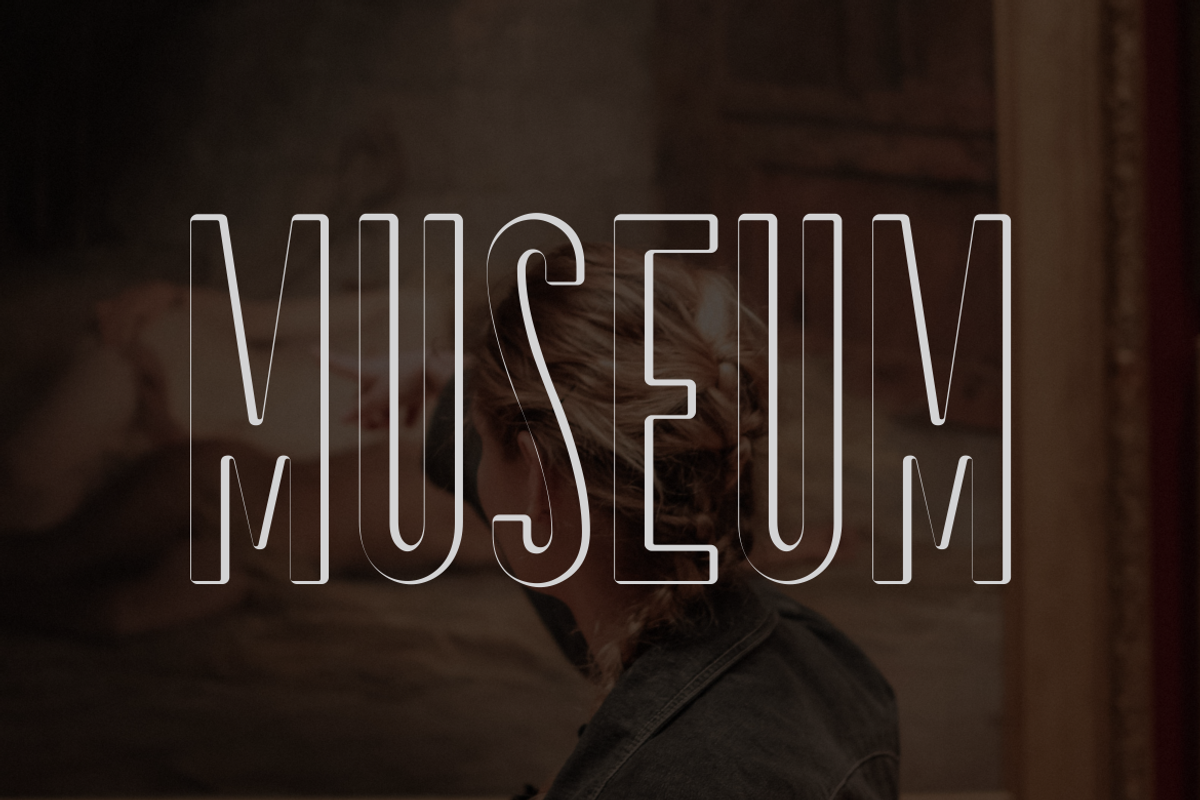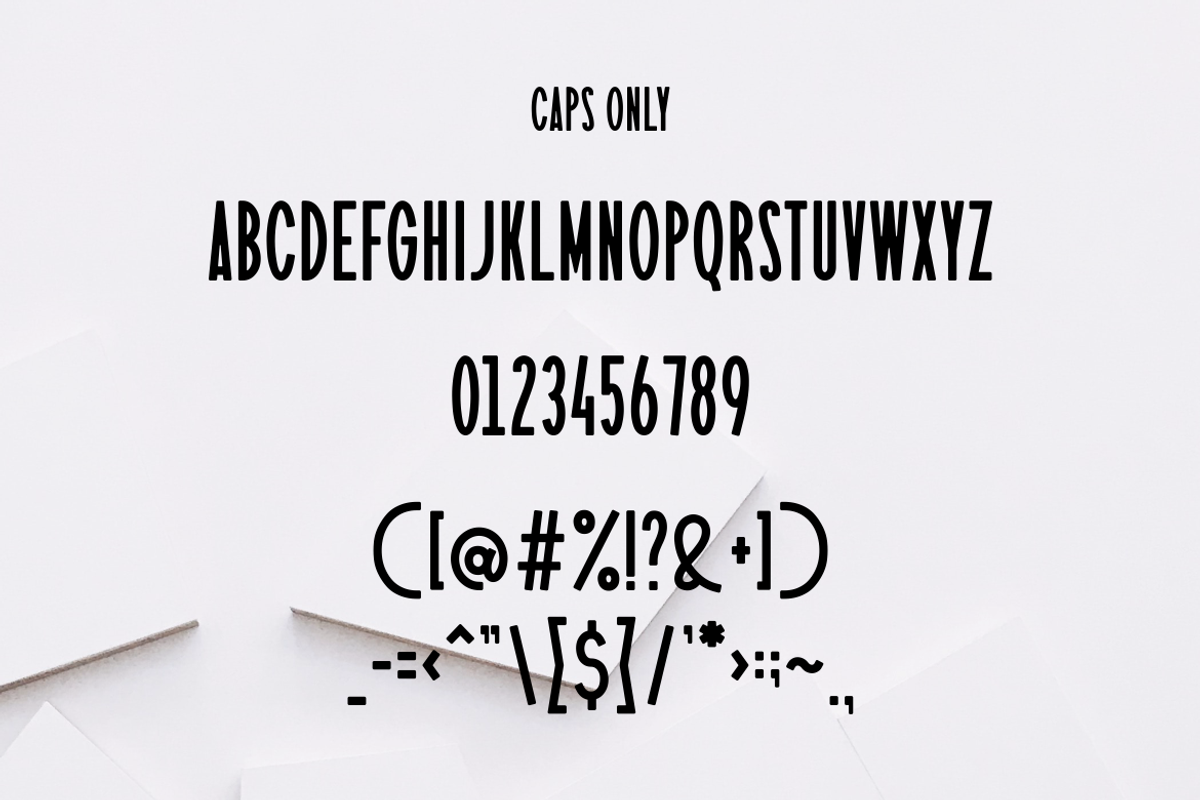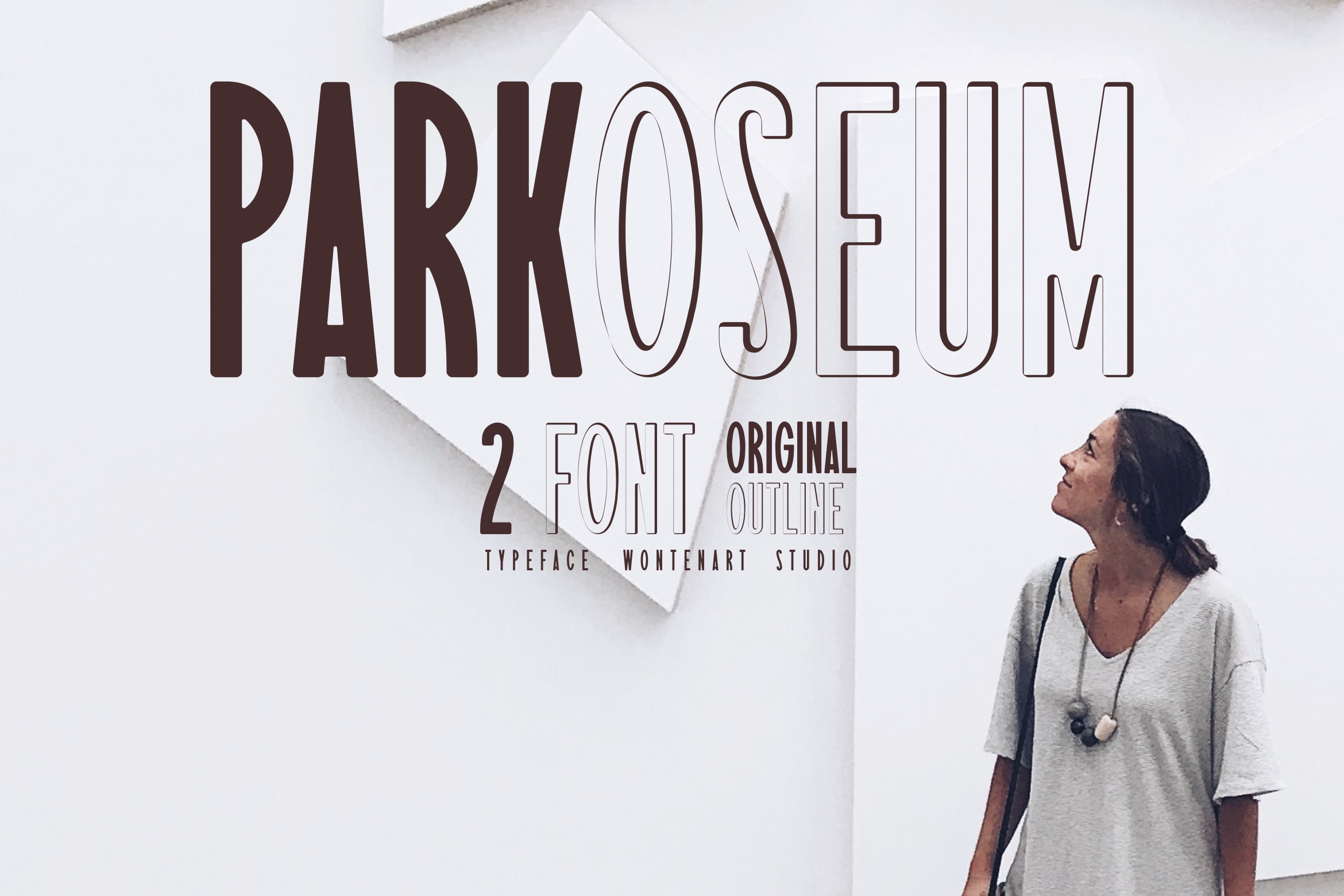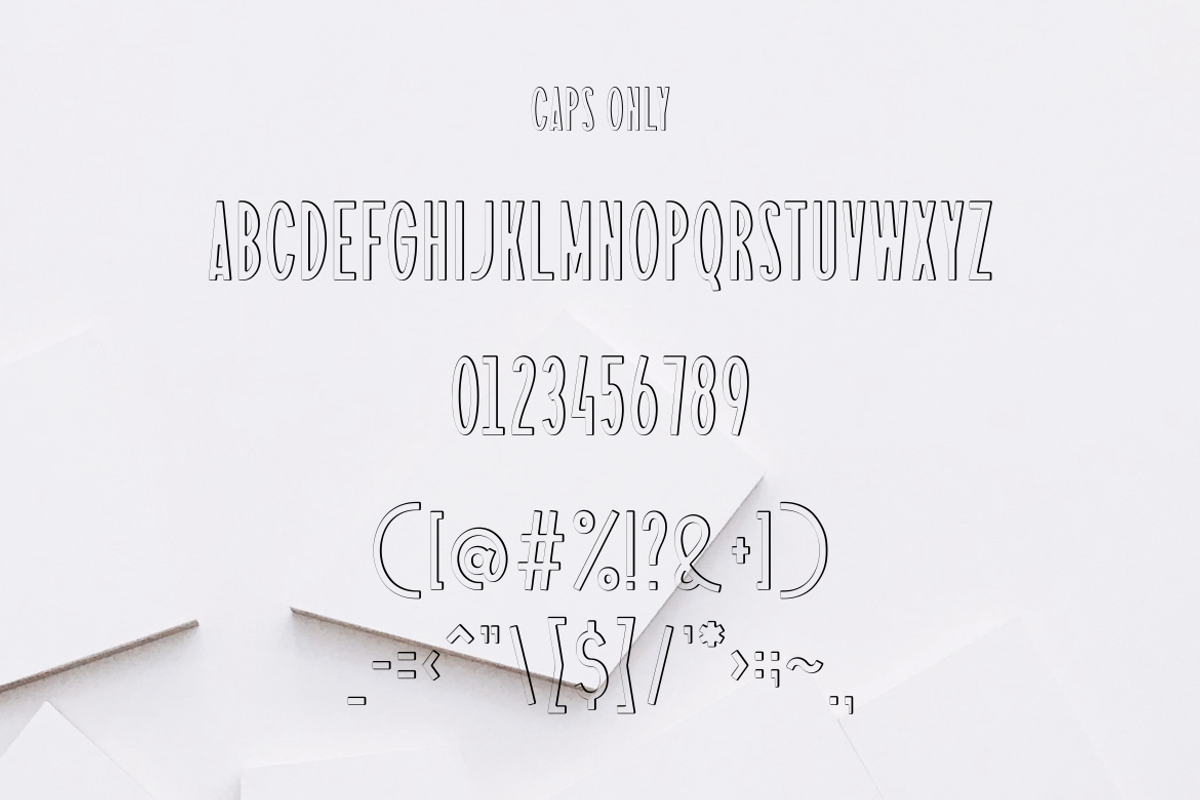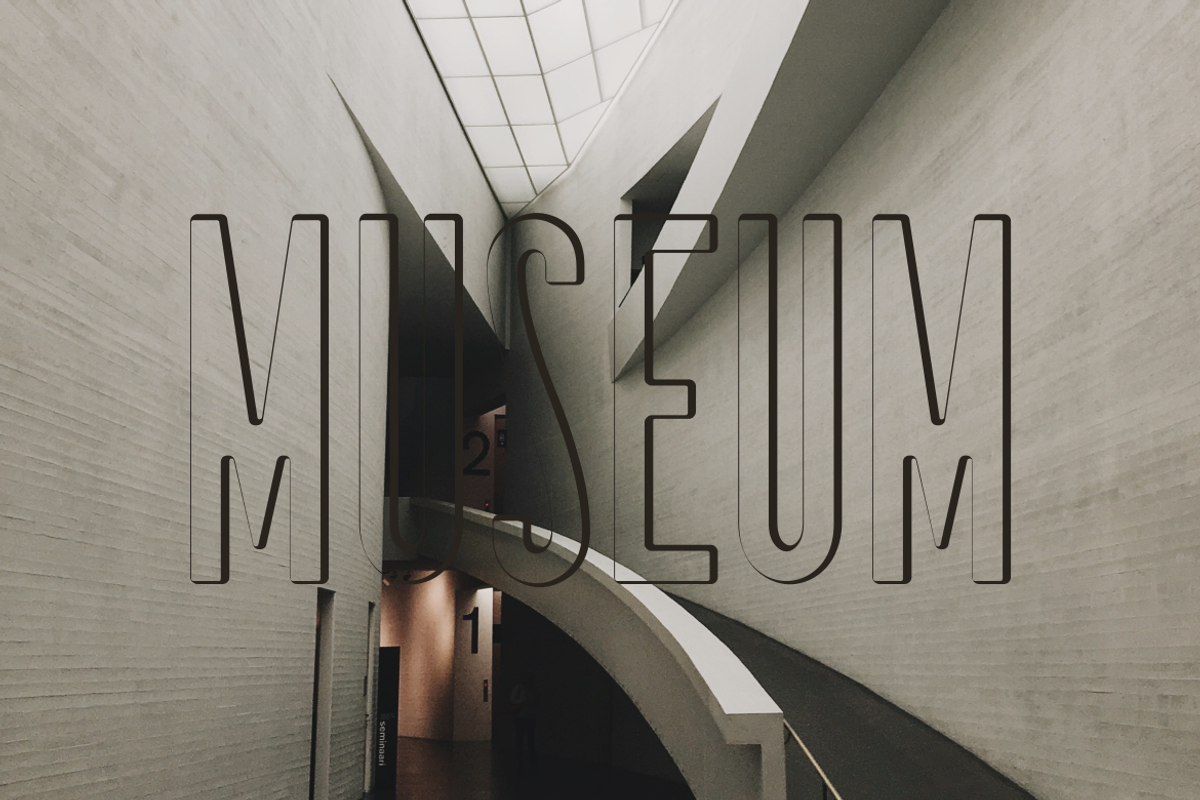
Parkoseum 2 Style Font
The font is a combination of bold and then flattened (not sharp and not rounded) to suit the conditions in the museum area, which is thick with local and international wisdom. This type of font is suitable other than writing in museums, it is also suitable for writing in tourist attractions, such as parks. flowers, swimming pool, playground, also zoo. the combination of normal and matching outline.